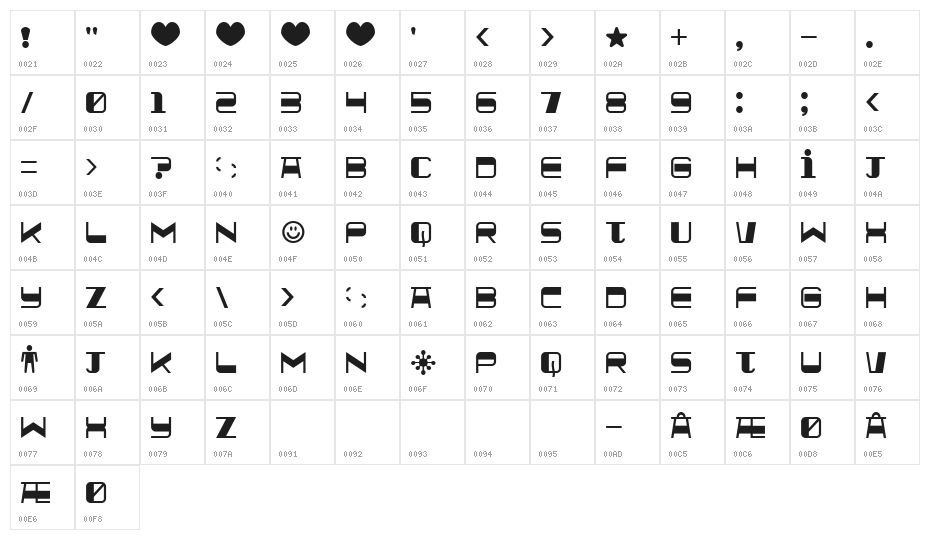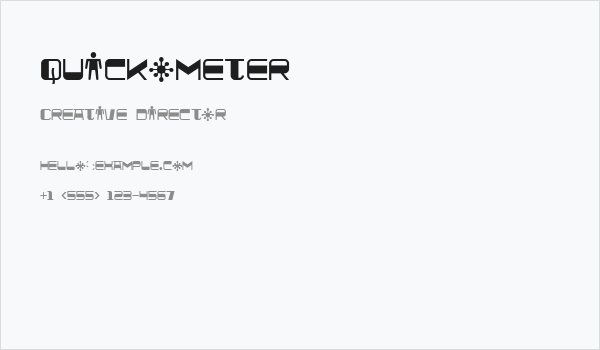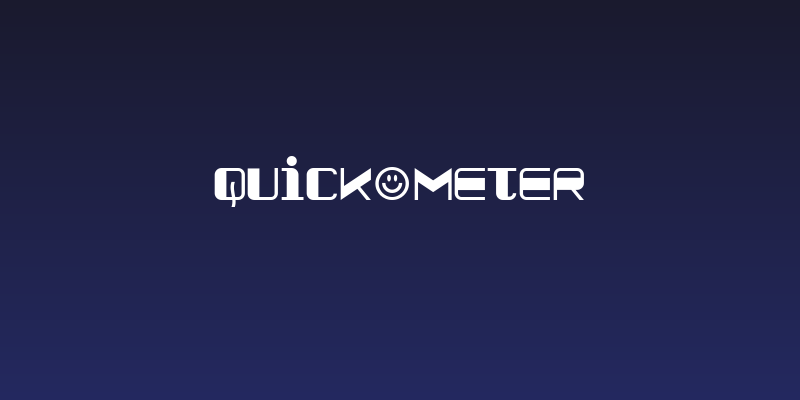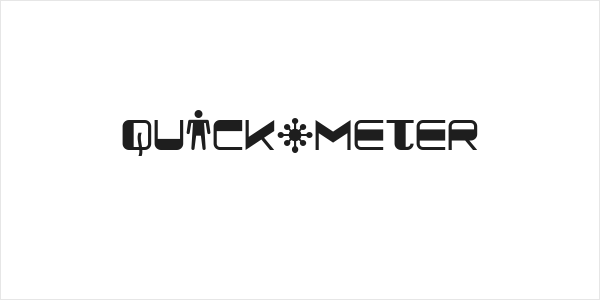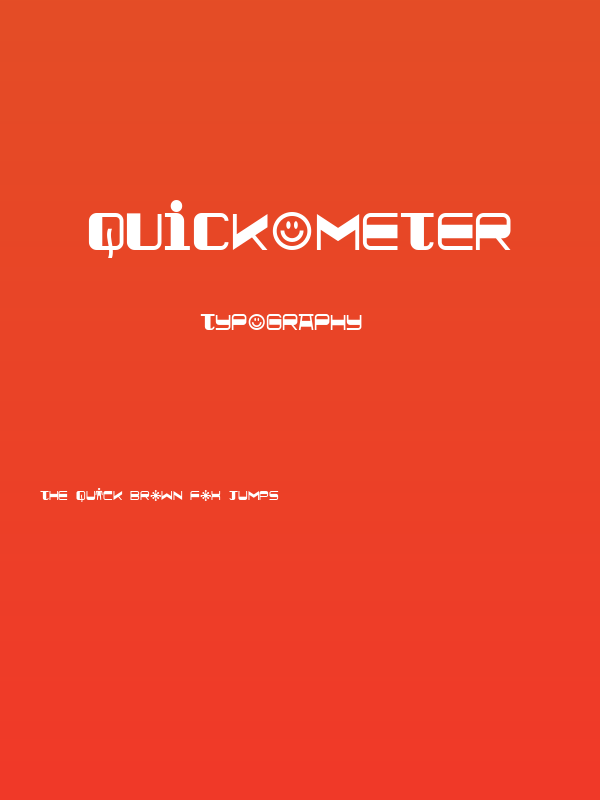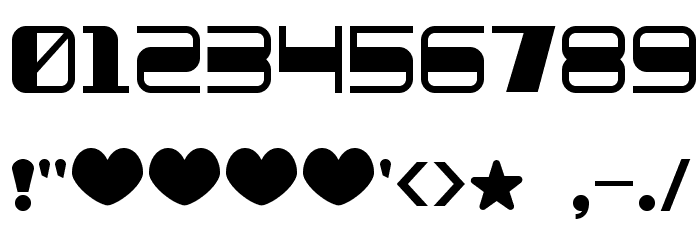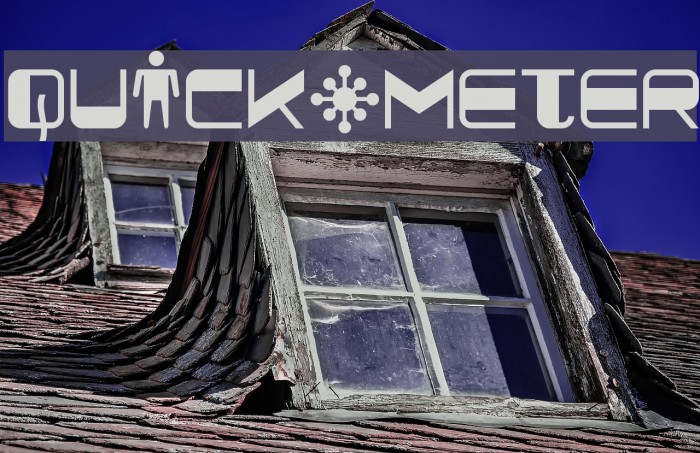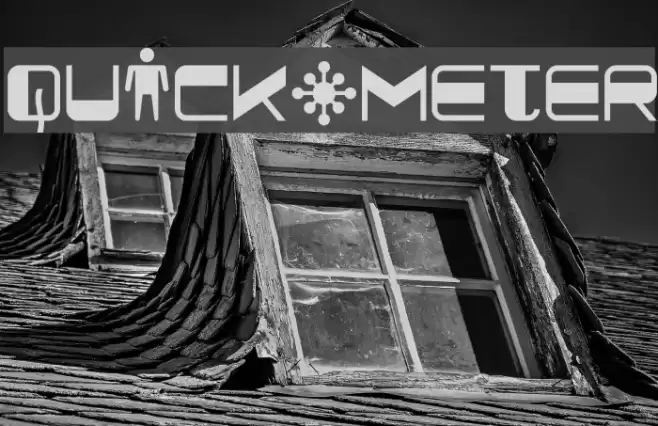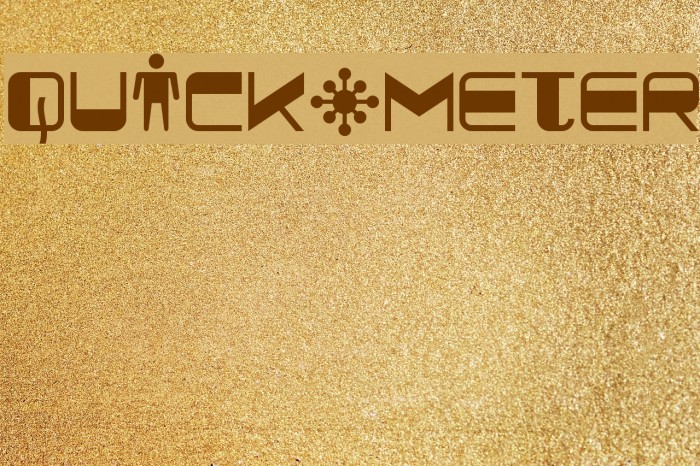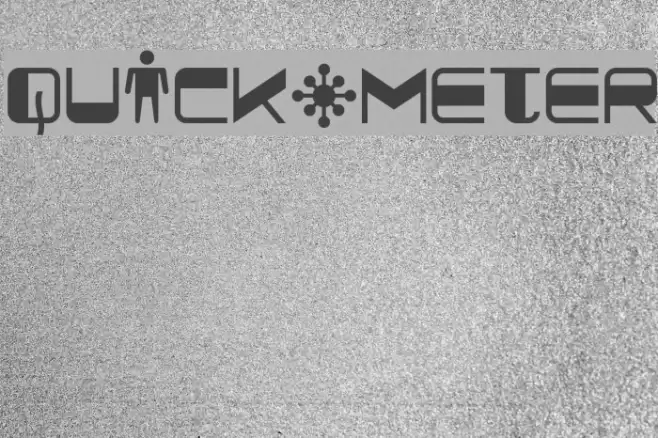
Quickometer Font
This font features a bold and futuristic design with geometric shapes and unique character elements. The uppercase letters are distinct with sharp angles and a modern aesthetic, while the lowercase letters maintain a consistent style. Numbers are bold and clear, making them easily legible. Special characters include playful elements like smiley faces and abstract symbols, adding a creative touch. The overall appearance is striking and suitable for attention-grabbing designs.
| Proposed Projects | Ideal for sci-fi themed projects, modern branding, posters, and digital media that require a bold statement. |